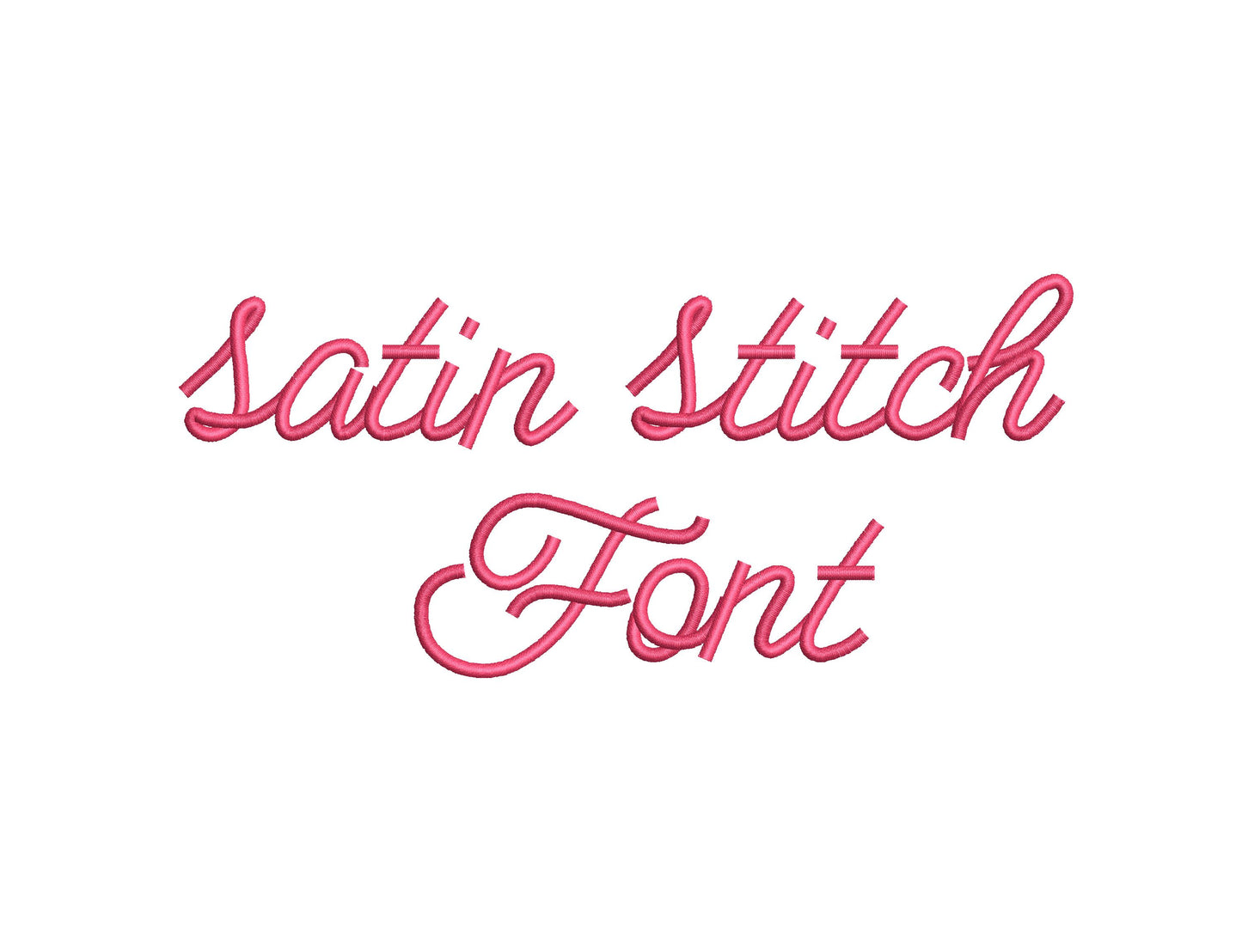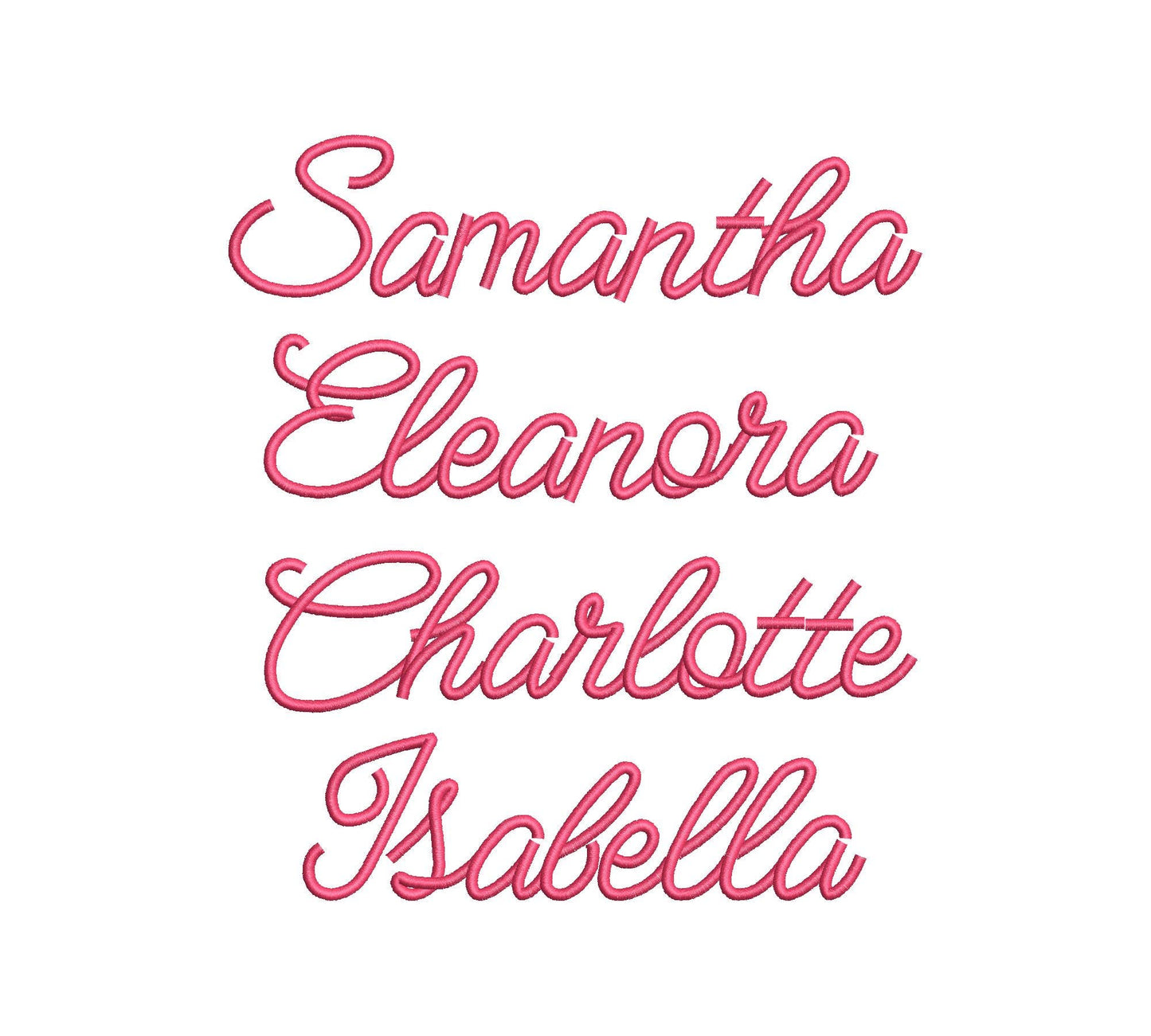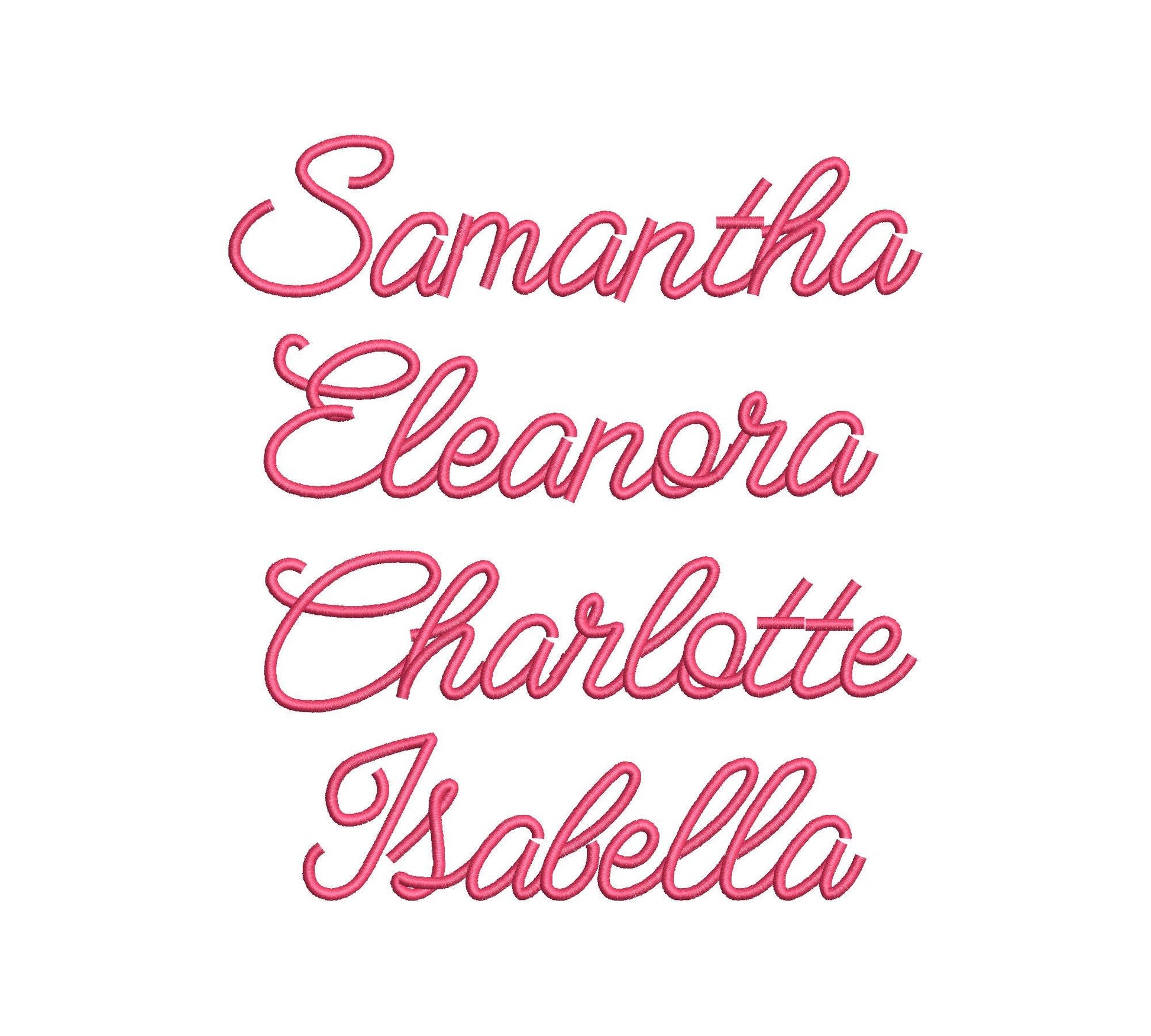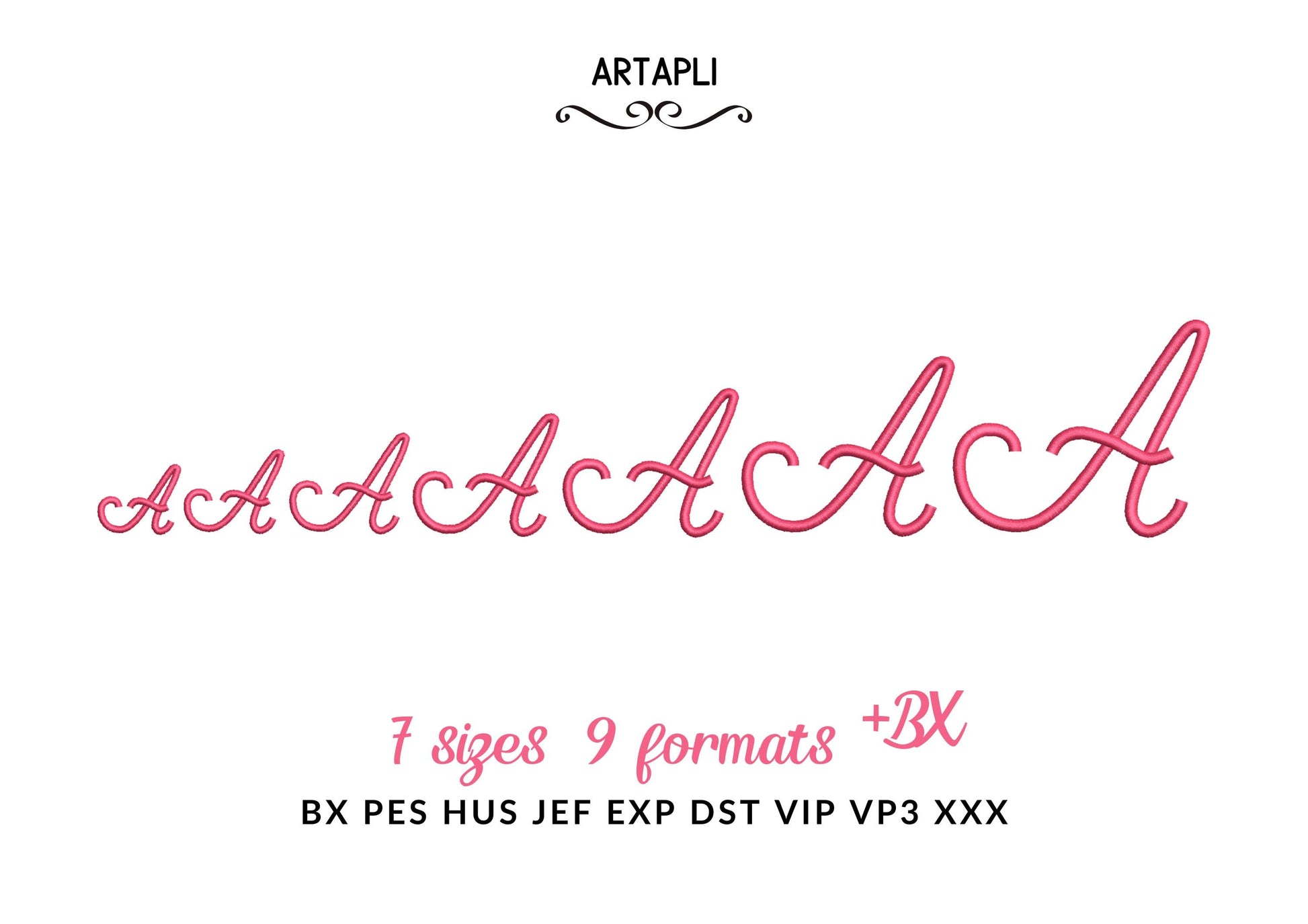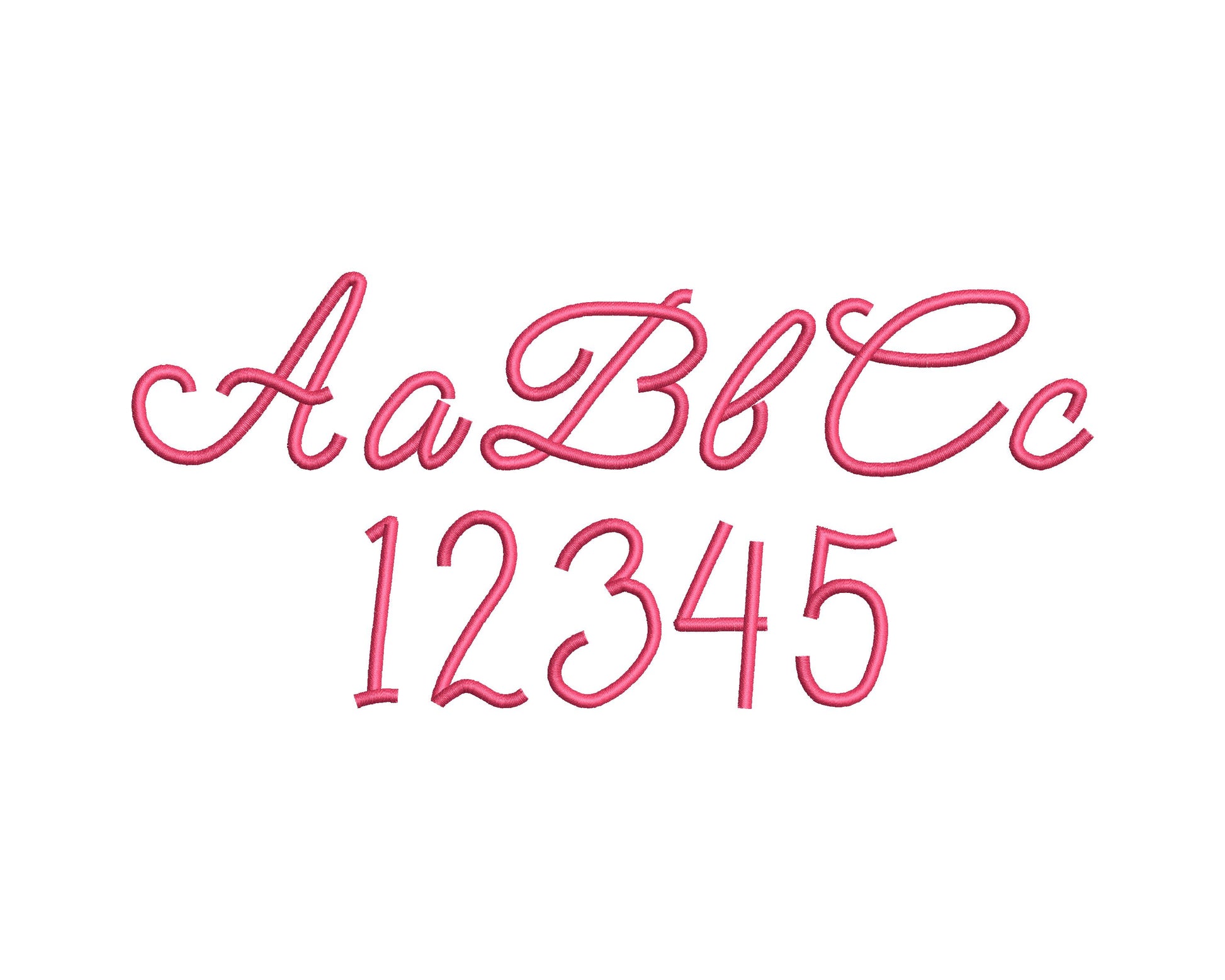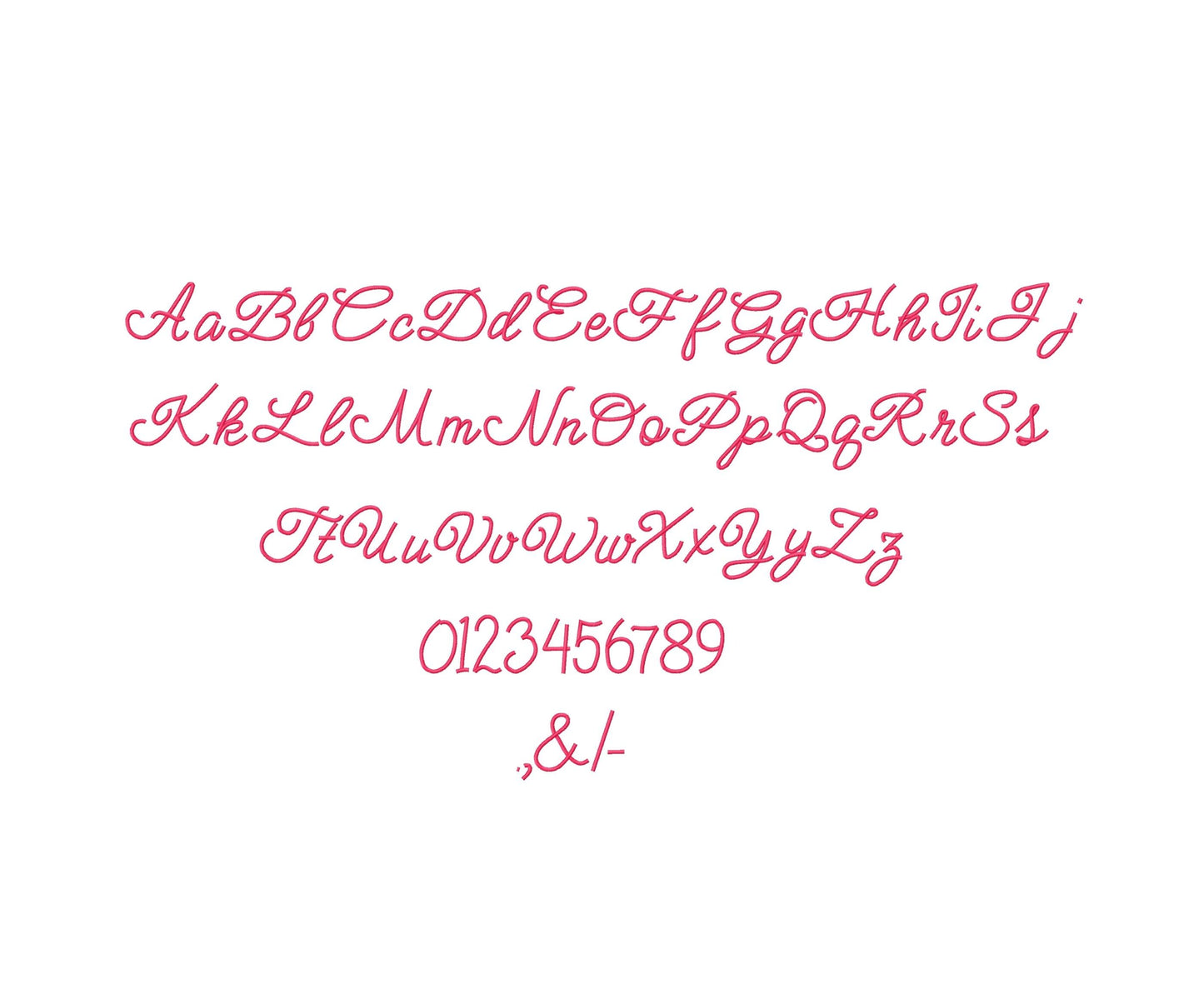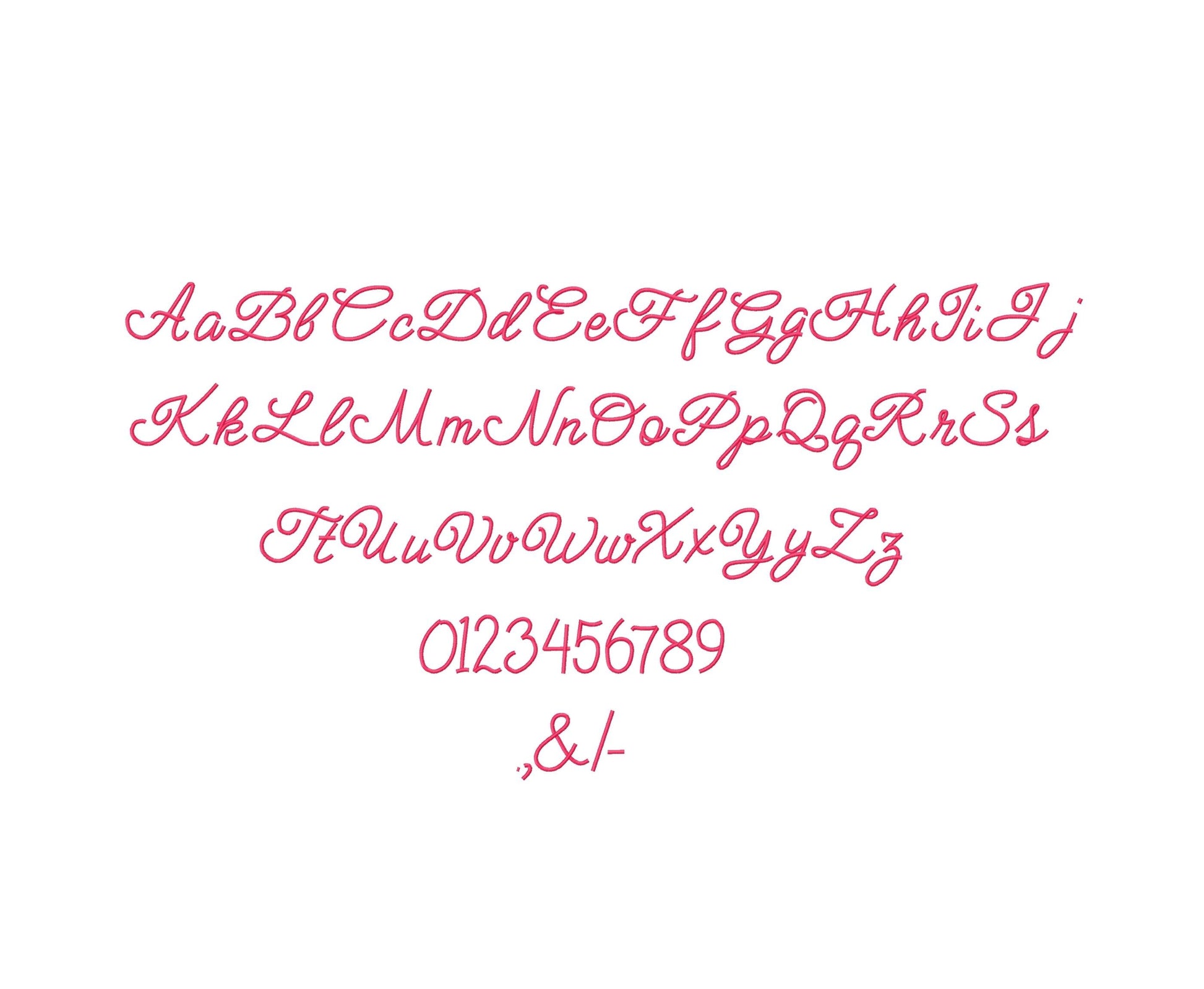
Satin Stitch Handwritten Font Script Alphabet Monogram Letters Kids
Or click to open the linkA girly satin stitch handwritten script for kids' and baby names, monograms and gifts.
Uppercase and lowercase letters, numbers and punctuation in seven sizes: 1, 1.2, 1.4, 1.7, 2, 2.5 and 3 inches.
- Satin stitch handwritten script font
- Uppercase, lowercase, numbers 0-9, punctuation
- 7 sizes, 1 to 3 in